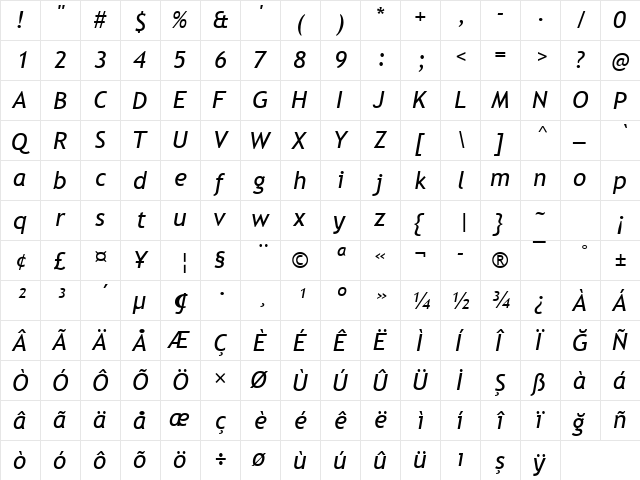
Trebuchet MS Digiscream Italic
Design Context for Trebuchet MS Digiscream Typeface
Trebuchet MS Digiscream is a composed and adaptable typeface that performs quietly and consistently across a wide range of design contexts. The slanted form adds forward momentum and visual energy.
Pro Tip: Try Trebuchet MS Digiscream for annotation and caption copy alongside an upright companion — the contrast in angle creates a dynamic but ordered typographic system.